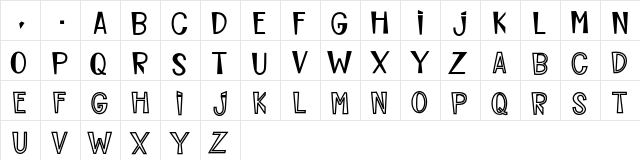
Planing Regular
| Foundry | Nasrullah |
| Designer | Nasrullah |
Design Context for Planing Typeface
Planing is a composed and adaptable typeface that performs quietly and consistently across a wide range of design contexts.